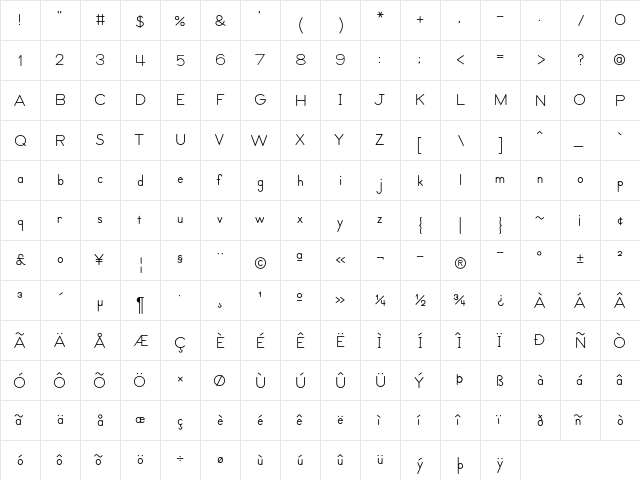
LetsTrace basic Font Preview
LetsTrace basic
Design Context for LetsTrace Typeface
LetsTrace takes a measured approach to typography — its balanced proportions and neutral character make it a reliable workhorse for both digital and print work.